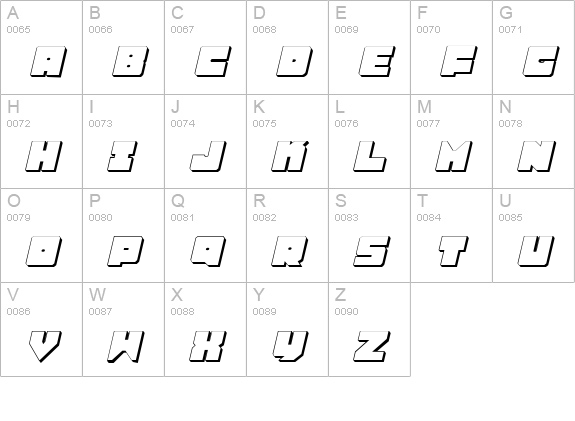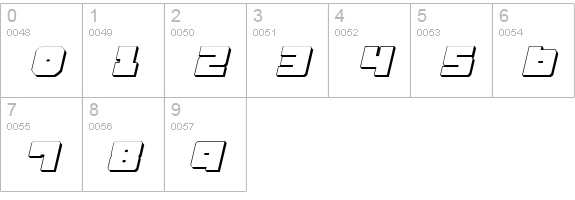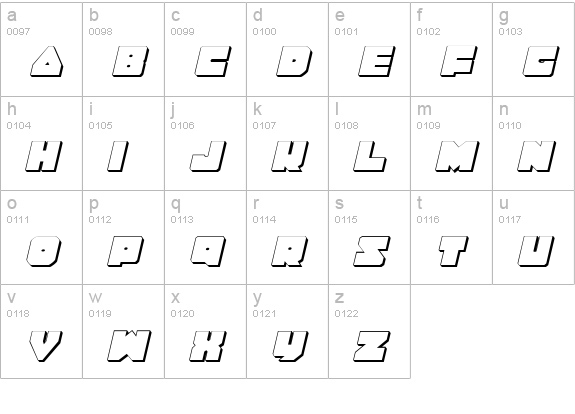
Lobo Tommy 3D Italic is a distinctive, italic variant in the Lobo typeface family \xE2\x80\x94 well suited to design and typography projects.
Lobo Tommy 3D Italic font is a stylish and modern typeface that adds a touch of sophistication to any design project. Its three-dimensional effect gives it a unique and eye-catching appearance, making it perfect for headlines, logos, and branding materials. The slanted italic style adds a dynamic and contemporary feel to your text. What's even better is that Lobo Tommy 3D Italic font is available for free download at FontsMarket.com. You can easily access this high-quality font and enhance your creative projects without any cost. Don't miss out on the opportunity to add a touch of elegance to your designs with this exceptional typeface. Download Lobo Tommy 3D Italic font now and elevate your design game!